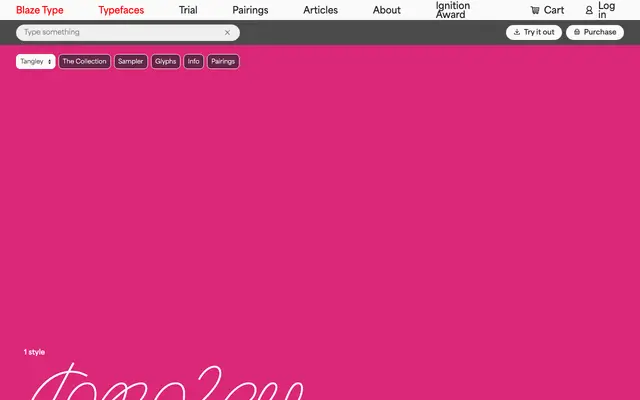
Tangley
Blaze Type · Sasha Smirnov · 2022
displayexpressive script-influenced display
A single-weight display face drawn from Cy Twombly's looping graphic marks, built for tight-tracked headlines and poster work.
Designed by Sasha Smirnov and released in 2022, Tangley interprets the untitled graphic series of Cy Twombly through a typographic lens, emphasising the characteristic loopiness of letterforms and a compressed vertical rhythm. The x-height is pushed high to minimise the contrast between upper and lowercase, creating a dense, visually uniform texture when set at tight or negative tracking. Suited to headlines, book covers, movie titles and large-format wayfinding where legibility is secondary to graphic energy.
Tangley is a display typeface inspired by Cy Twombly's looping, gestural mark-making; while it uses Latin letterforms, its exaggerated loops and intentionally compressed vertical rhythm place it firmly in the expressive display category rather than a conventional script.